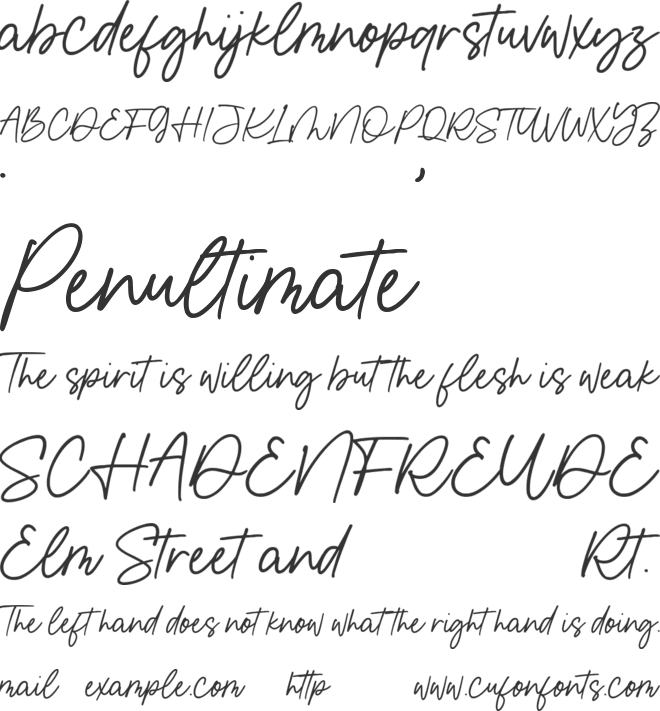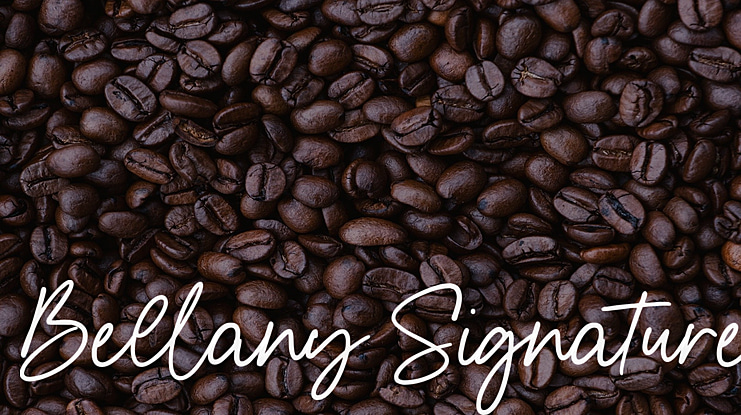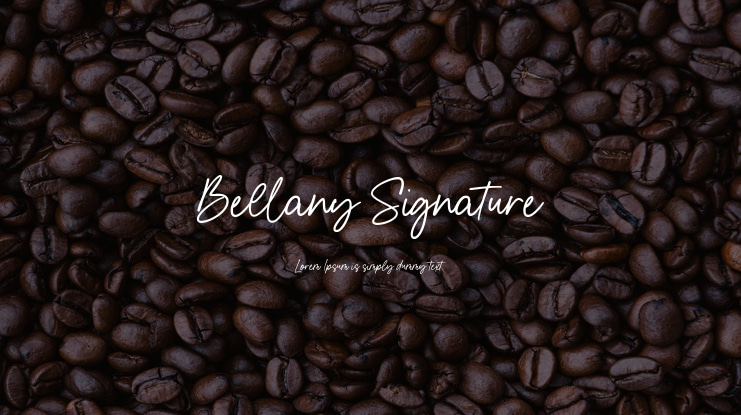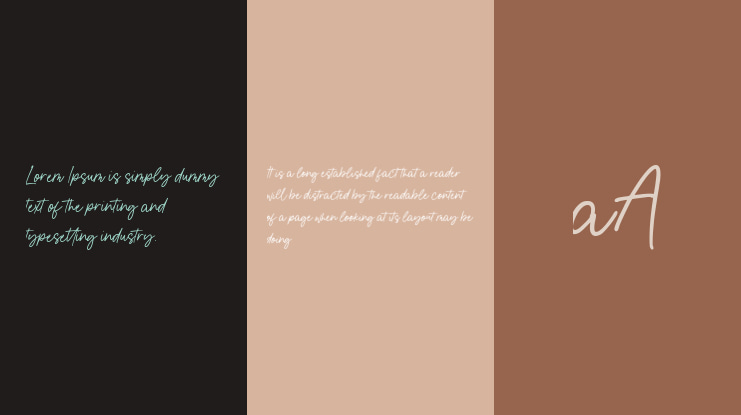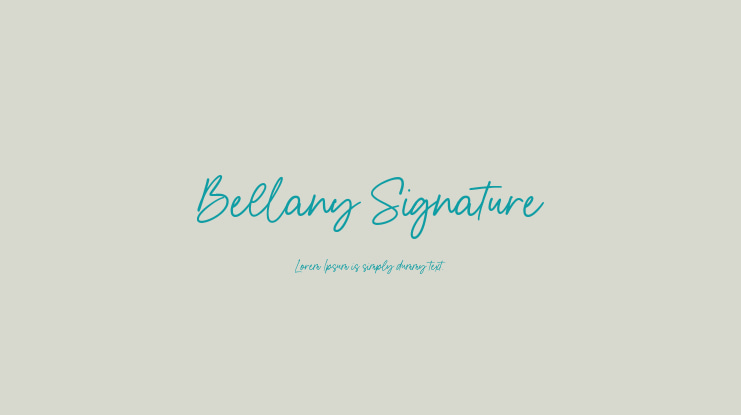
Bellany Signature Font
Bellany Signature Script Font is inspired by classic typography and brings its own unique style to any design project. Whether you’re looking for fonts for Instagram or calligraphy scripts for DIY projects, this handwritten font will turn any creative idea into a true piece of art!
– Uppercase, Lowercase, Numeral & Punctuation
– Alternate Letters, Ligature & Swash/Tail